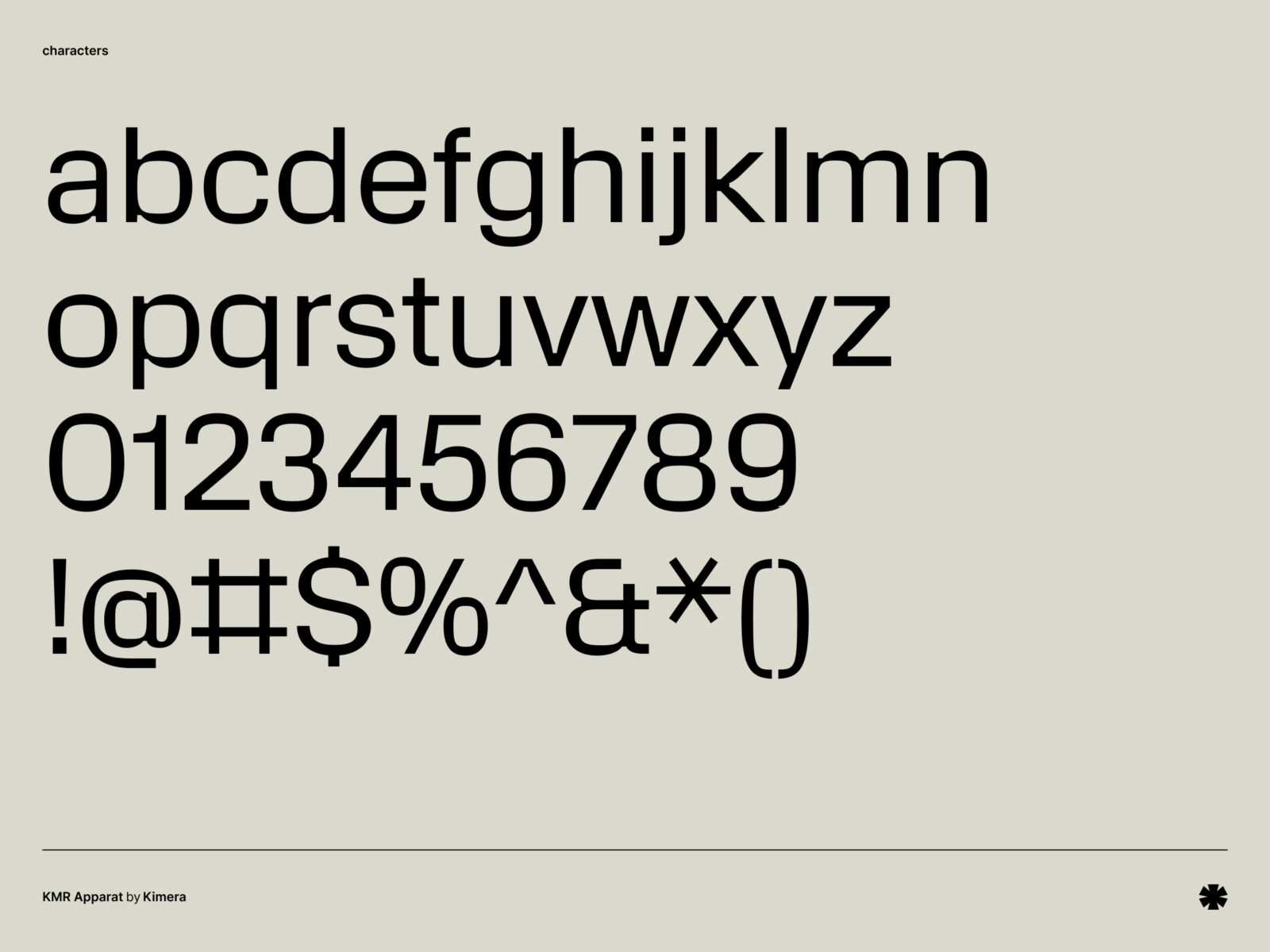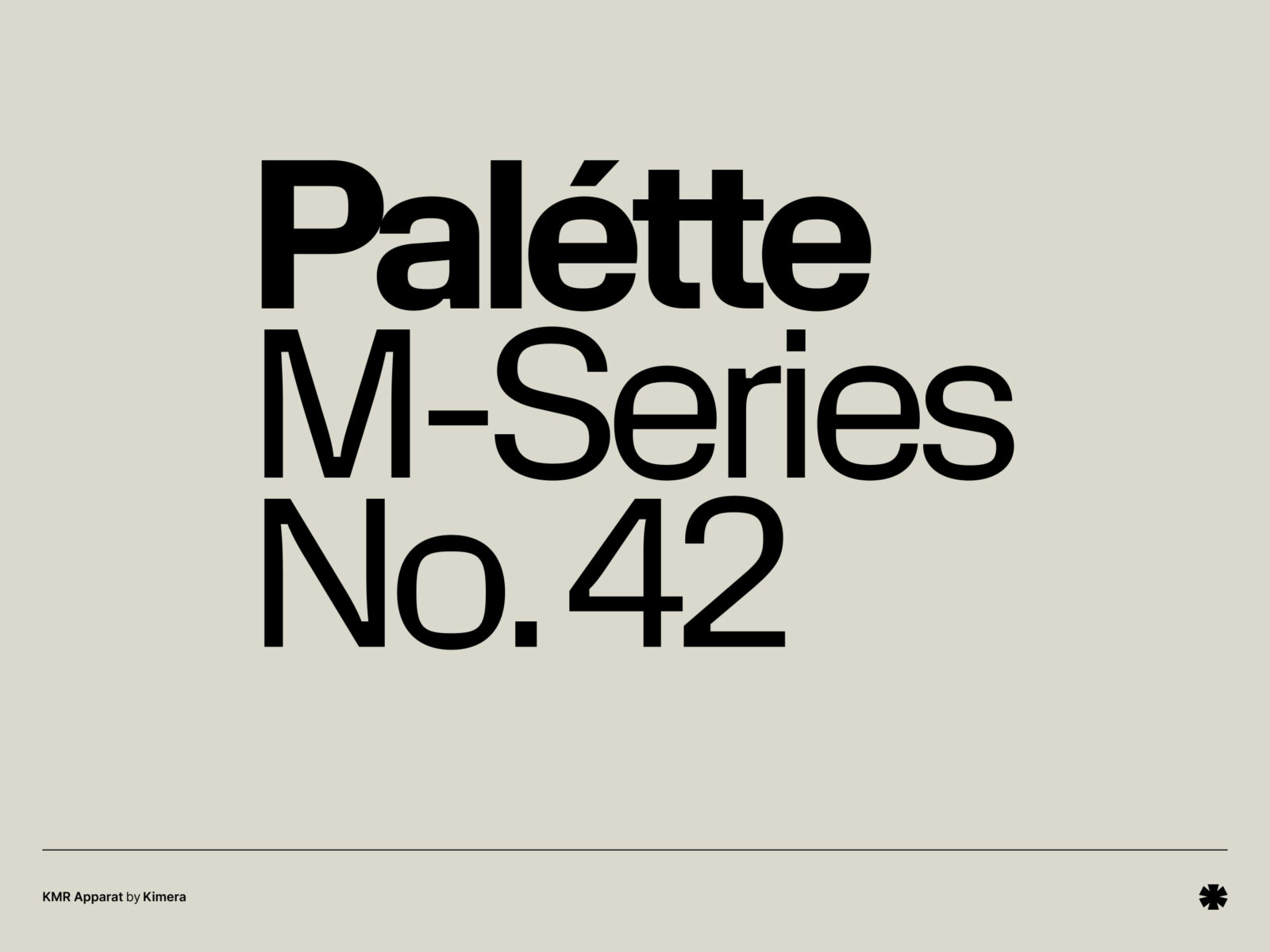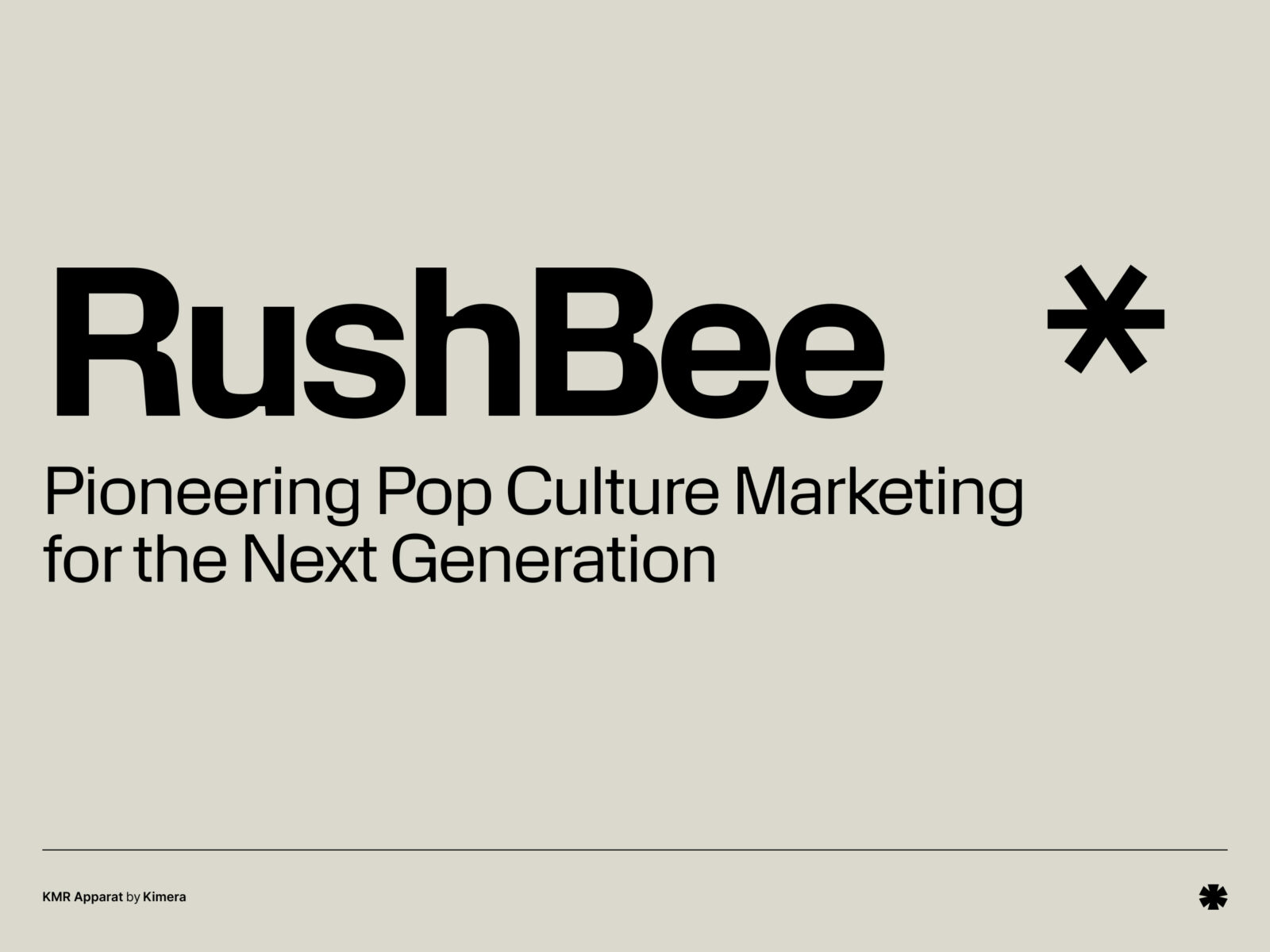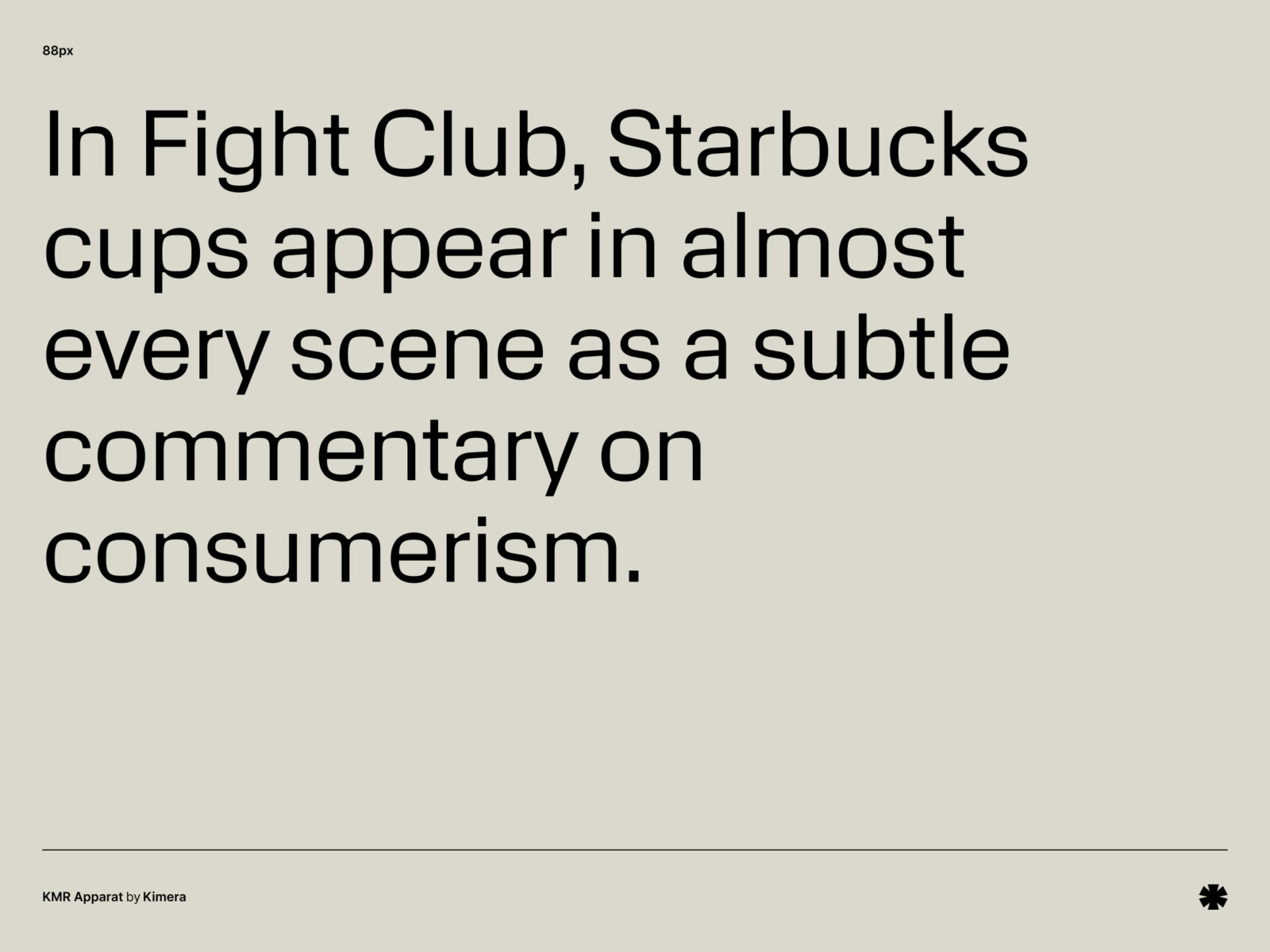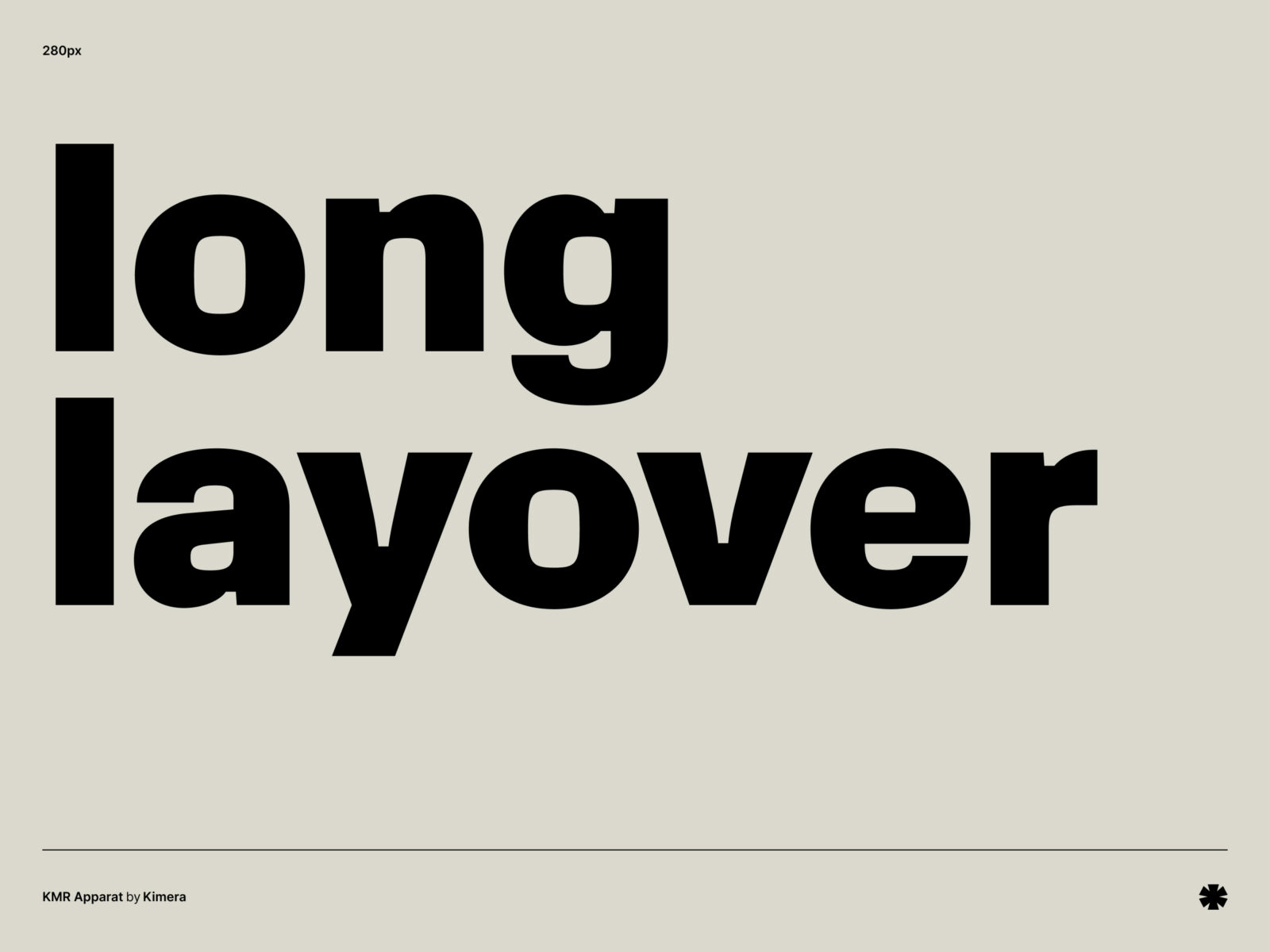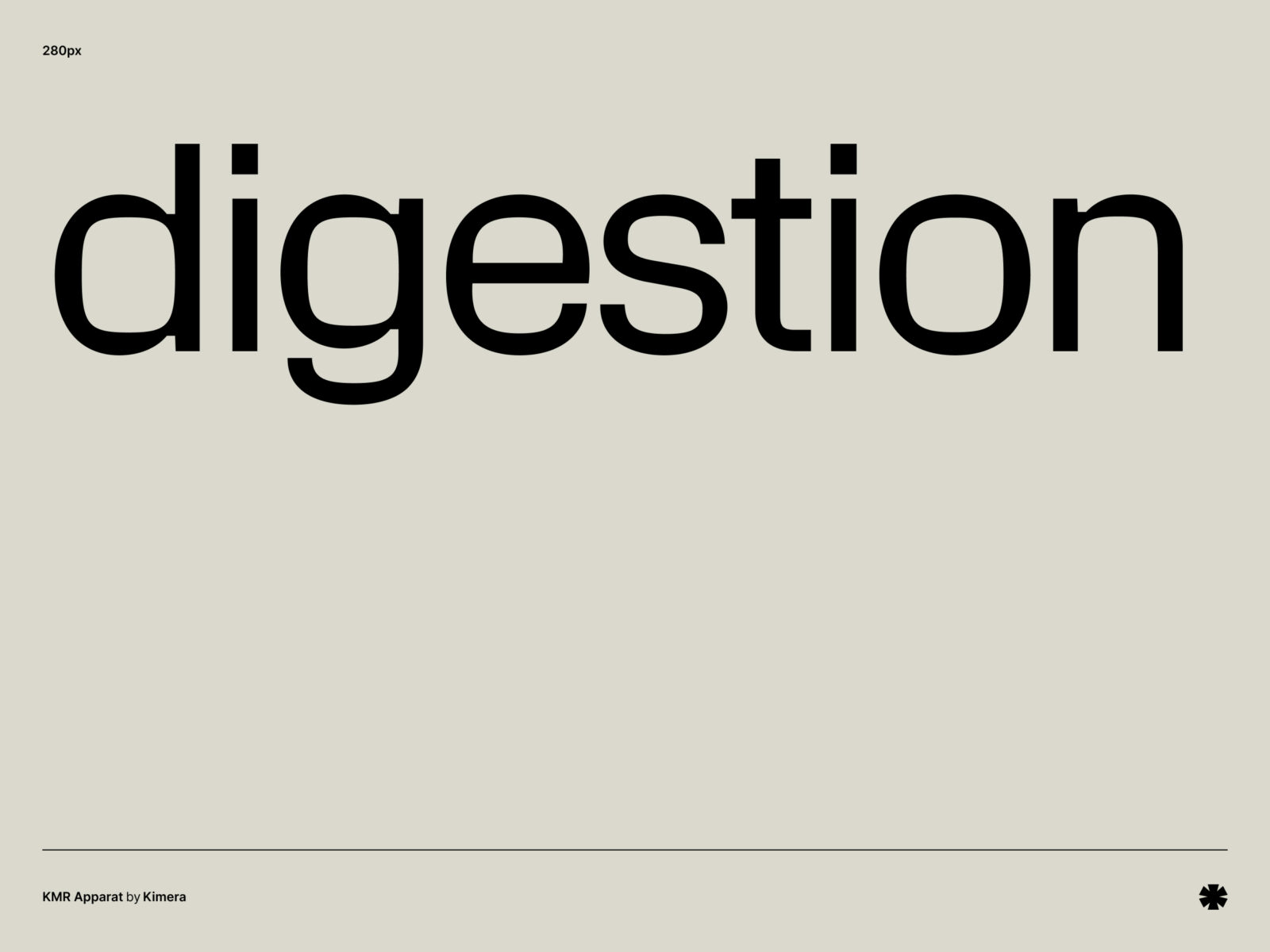
In the 70s typefaces were optimized for TV screens and broadcasting and Apparat draws direct inspiration from that. The typeface is very versatile and can be used in many various use cases.